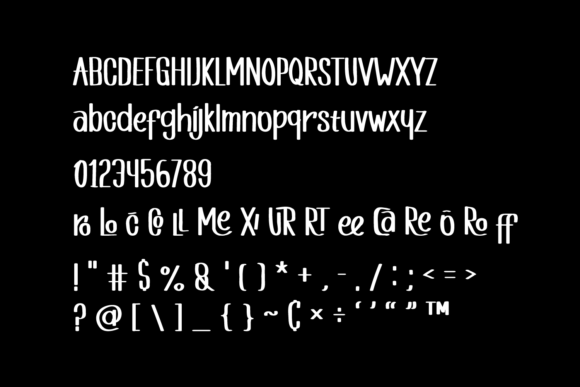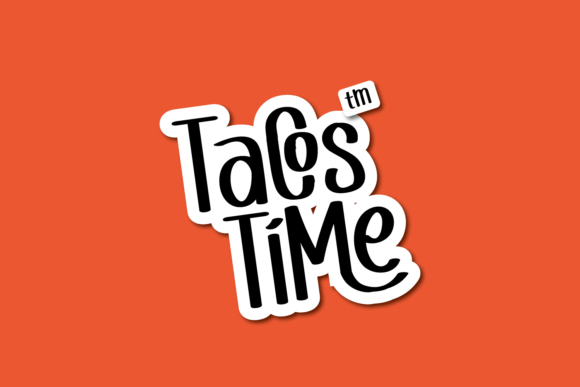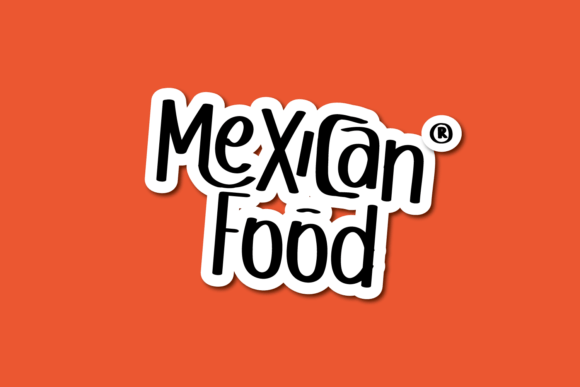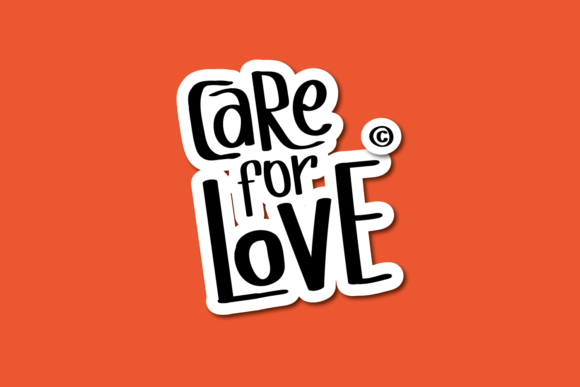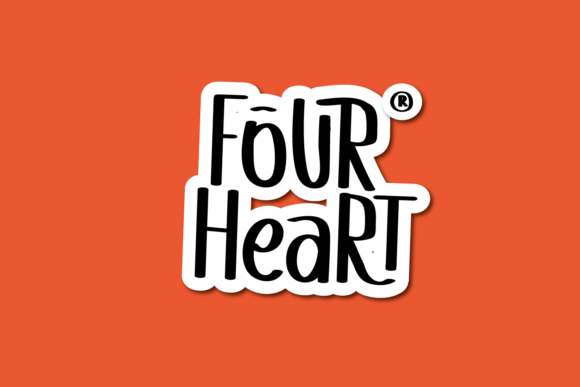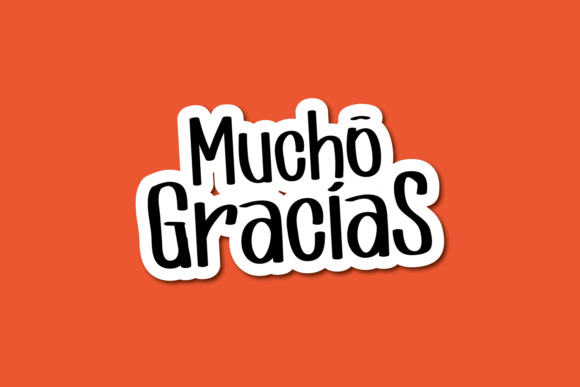
Unleash Your Creativity with El Toro Loco Font
Are you tired of using the same old fonts in your designs? Look no further than El Toro Loco Font, a bold and beautiful handwritten font that’s sure to make your projects stand out. With its unique characters and special custom handwriting, El Toro Loco is the perfect choice for designers and crafters looking to add a touch of personality to their work.
The Story Behind El Toro Loco
El Toro Loco, which translates to “The Mad Bull” in Spanish, is a font that’s all about embracing individuality and self-expression. Its bold and strong design makes it perfect for headlines, titles, and other display text, while its fun and playful vibe ensures that it’s always approachable and engaging.
A Handcrafted Font with a Personal Touch
One of the things that sets El Toro Loco apart from other fonts is its handcrafted nature. Each character has been carefully crafted by hand, giving the font an organic and natural feel that’s hard to replicate with digital fonts. The result is a font that feels personal and authentic, with a unique character that’s sure to capture the attention of your audience.
Key Features of El Toro Loco Font
- Bold and Strong Design: El Toro Loco is a font that’s not afraid to make a statement. Its bold and strong design makes it perfect for headlines, titles, and other display text.
- Unique Characters: Each character in El Toro Loco has been carefully crafted to be unique and distinctive, giving the font a high level of personality and individuality.
- Special Custom Handwriting: The font’s special custom handwriting gives it an organic and natural feel that’s hard to replicate with digital fonts.
- Fun and Playful Vibe: Despite its bold and strong design, El Toro Loco has a fun and playful vibe that’s perfect for designs that need to be approachable and engaging.
Using El Toro Loco in Your Designs
El Toro Loco is a versatile font that can be used in a wide range of designs, from posters and flyers to logos and branding materials. Here are a few ideas for using El Toro Loco in your designs:
- Headlines and Titles: Use El Toro Loco to create bold and eye-catching headlines and titles that grab the attention of your audience.
- Logos and Branding: El Toro Loco is a great choice for logos and branding materials, particularly for businesses that want to convey a sense of energy and personality.
- Posters and Flyers: Use El Toro Loco to create bold and eye-catching posters and flyers that stand out from the crowd.
Why Designers and Crafters Love El Toro Loco
El Toro Loco has quickly become a favorite among designers and crafters, and it’s easy to see why. Here are a few reasons why:
- Unique and Distinctive: El Toro Loco is a font that’s truly one-of-a-kind, making it perfect for designers and crafters who want to stand out from the crowd.
- Easy to Read: Despite its bold and strong design, El Toro Loco is easy to read, making it perfect for designs that need to communicate a message clearly and effectively.
- Versatile: El Toro Loco can be used in a wide range of designs, from posters and flyers to logos and branding materials.
El Toro Loco Font is a bold and beautiful handwritten font that’s perfect for designers and crafters looking to add a touch of personality to their work. With its unique characters, special custom handwriting, and fun and playful vibe, El Toro Loco is sure to make your projects stand out. Whether you’re creating headlines and titles, logos and branding materials, or posters and flyers, El Toro Loco is a great choice. So why not give it a try and see what amazing designs you can create?